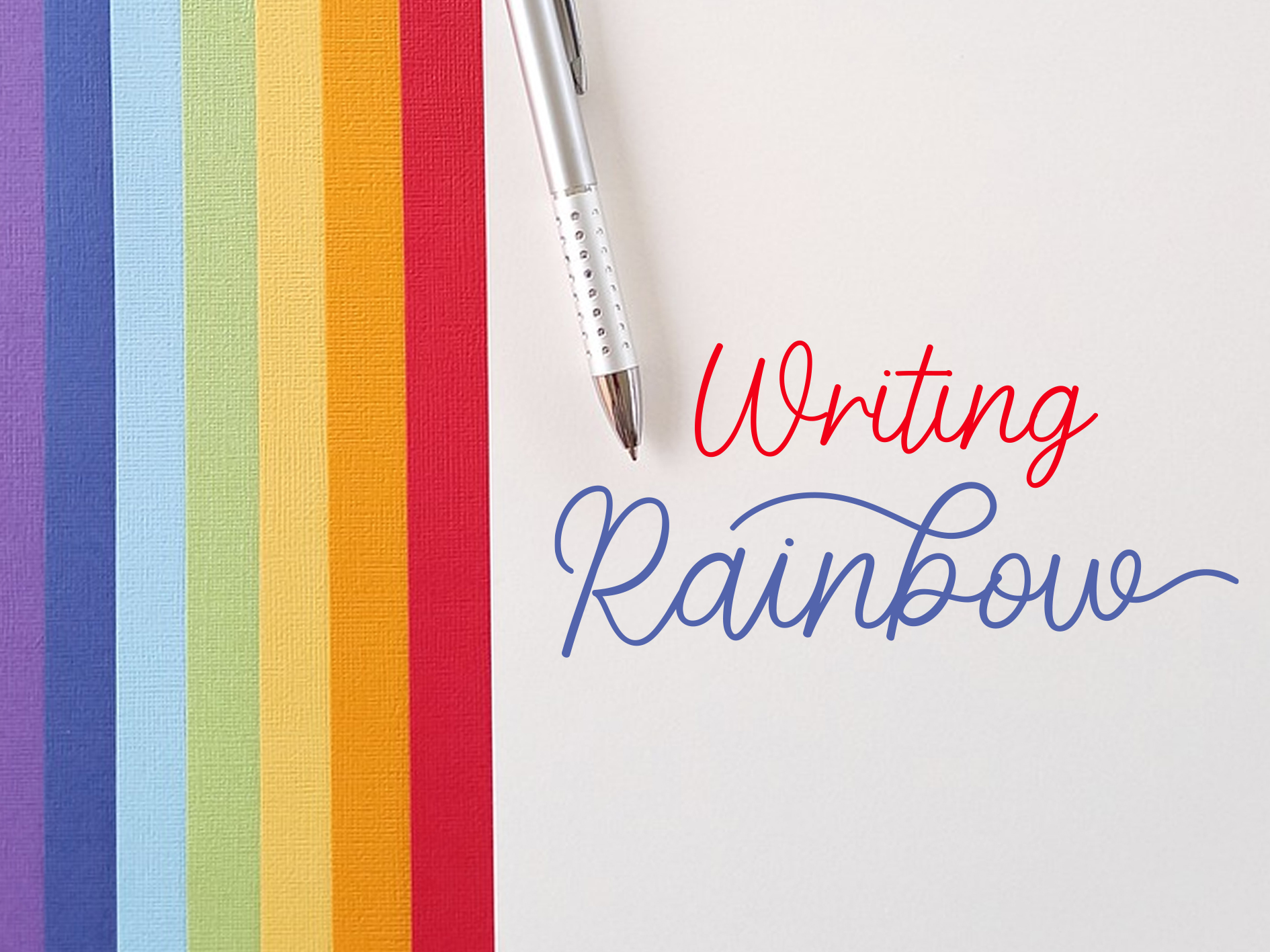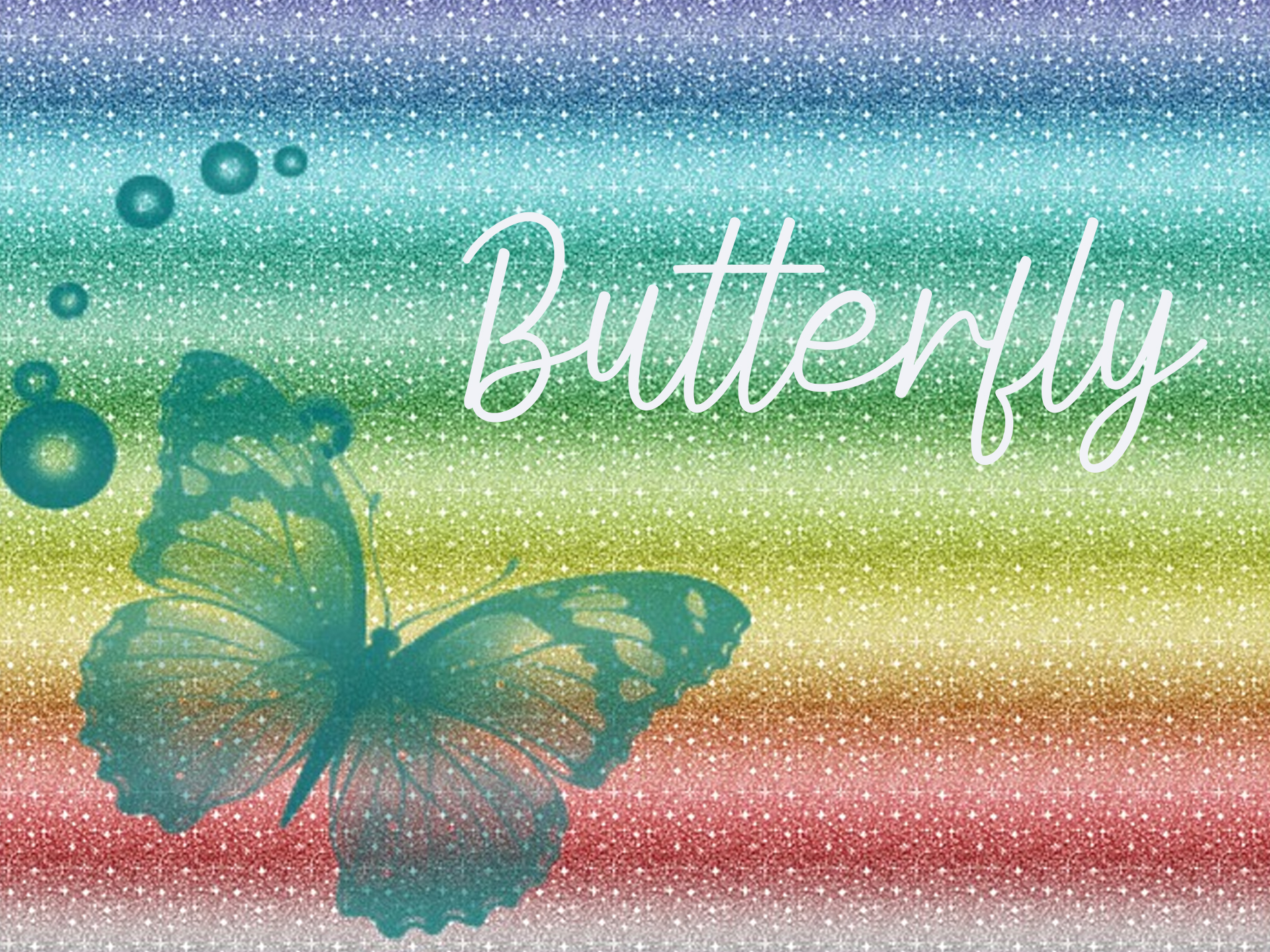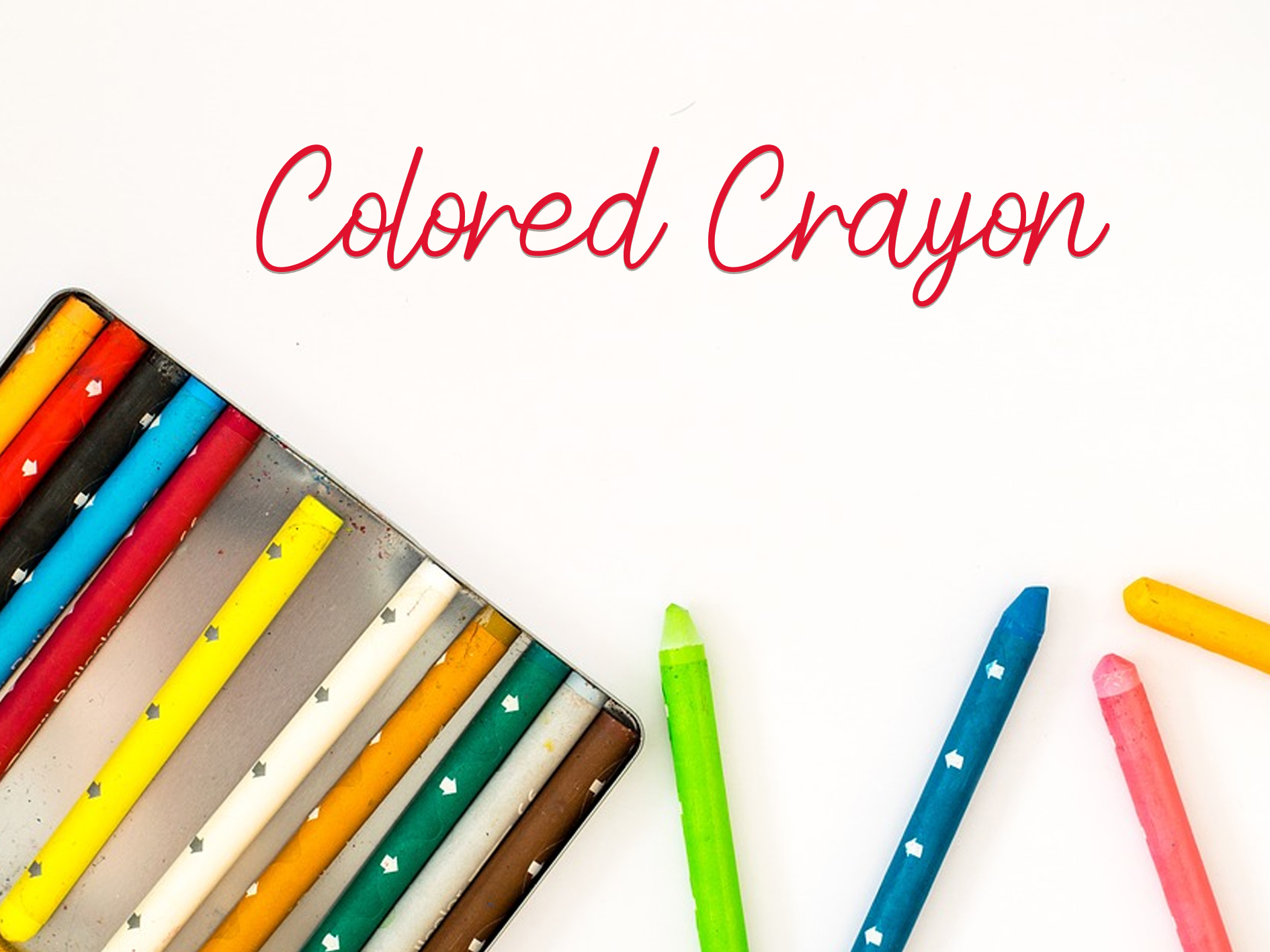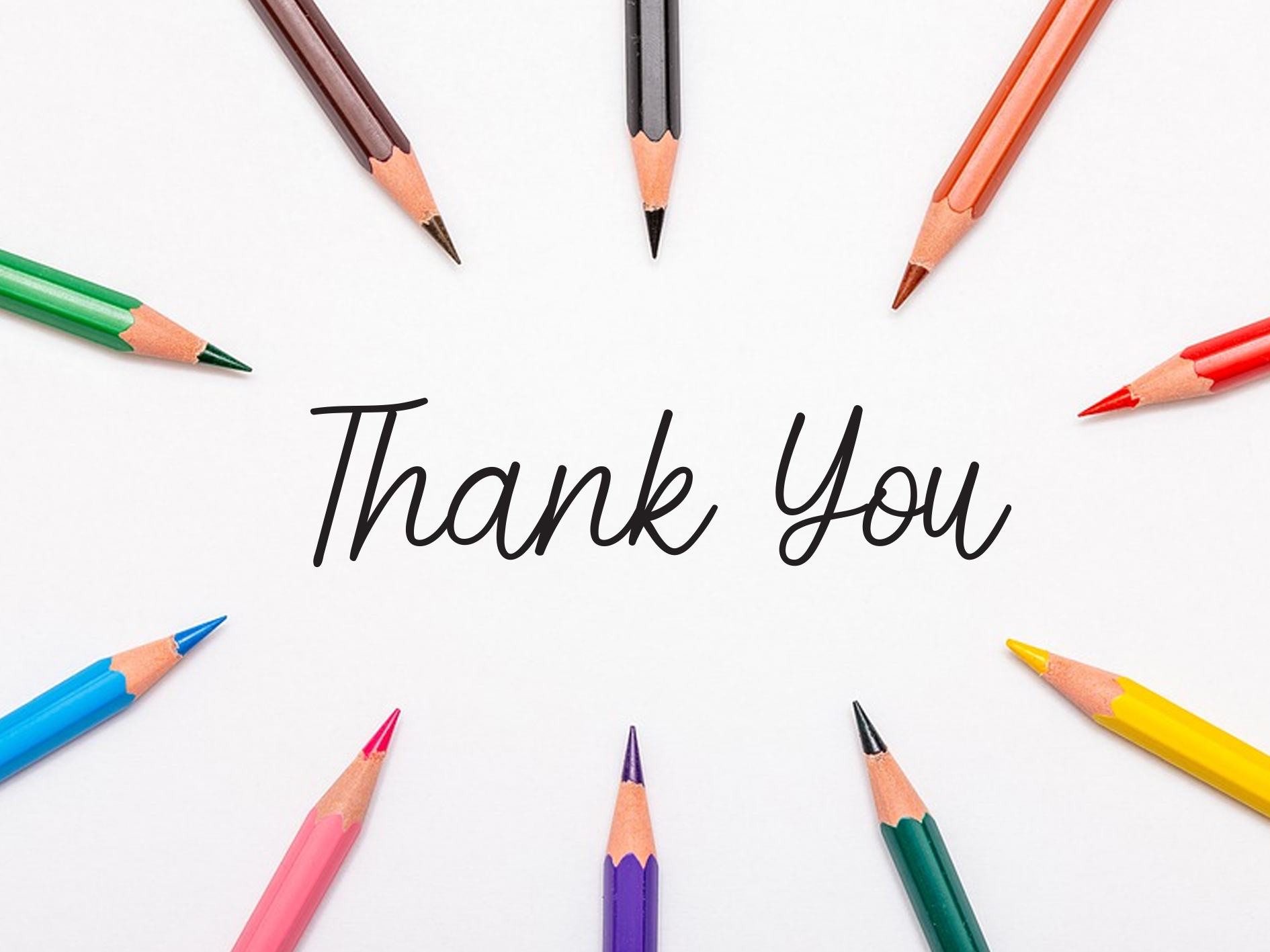
Rainbow Script Typeface
It’s a delicate handwritten font that is carefully crafted to produce cool and unique designs. This font can be used to write letters, invitations, food products and more.
This is a beautiful and unique handwritten font, with grooves crafted to produce beautiful lettering for use in a wide variety of products as desired. This product link; https://www.creativefabrica.com/product/rainbow-307/ref/1679118/